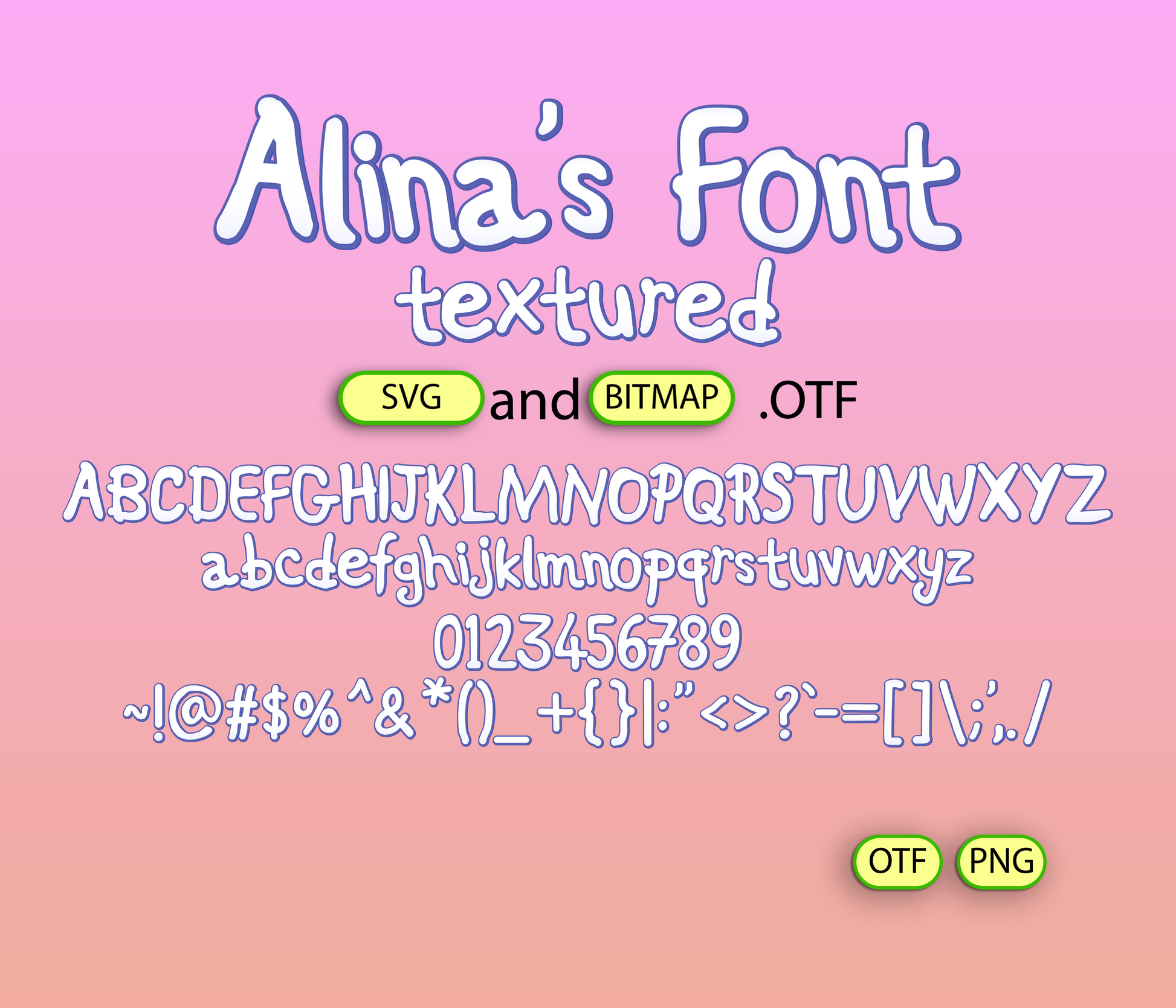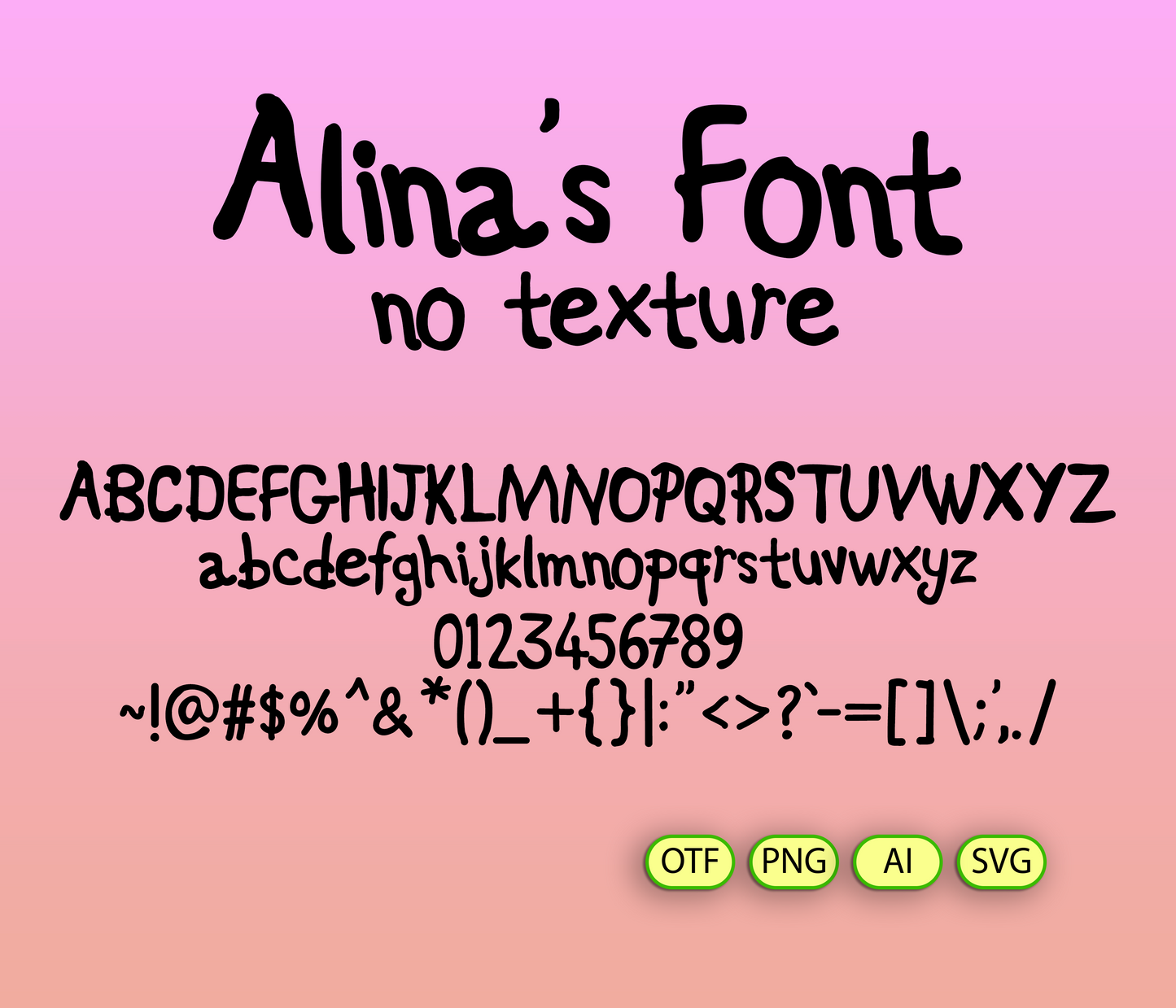
Honey Bear Tales Font Textured
Step into the whimsical world of the Hundred-Acre Woods with our font inspired by a beloved stuffed bear and his heartwarming adventures. This typeface captures the innocent charm and playful spirit of childhood friendship, perfect for creators who want to infuse their projects with nostalgic warmth and gentle wisdom.
Our Sweet Forest font features soft, rounded characters that reflect the cozy comfort of childhood stories. Perfect for:
1. Children's Events: Create charming invitations and decorations
2. Nursery Decor: Design sweet wall art and name plates
3. Baby Shower Materials: Craft adorable celebration items
4. Digital Content: Enhance children's blogs and websites
5. Merchandise Design: Create cuddly-themed products
6. Children's Books: Design storytelling materials
7. Party Supplies: Develop themed celebration items
8. Educational Materials: Create engaging learning resources
Seamless Integration and Features
The Sweet Forest font includes both honey-textured and clean variants, ensuring compatibility across all design platforms, including Canva. Whether you're a professional designer or enthusiast, this font brings the perfect blend of childhood magic and storybook charm to your creations.
Creative Applications
Transform your designs with the power of this woodland-inspired typeface. From nursery decorations to personal projects, this font delivers the perfect balance of sweetness and adventure. Ready to bring forest friend vibes to your designs? This font is your gateway to creating impactful, heartwarming content.